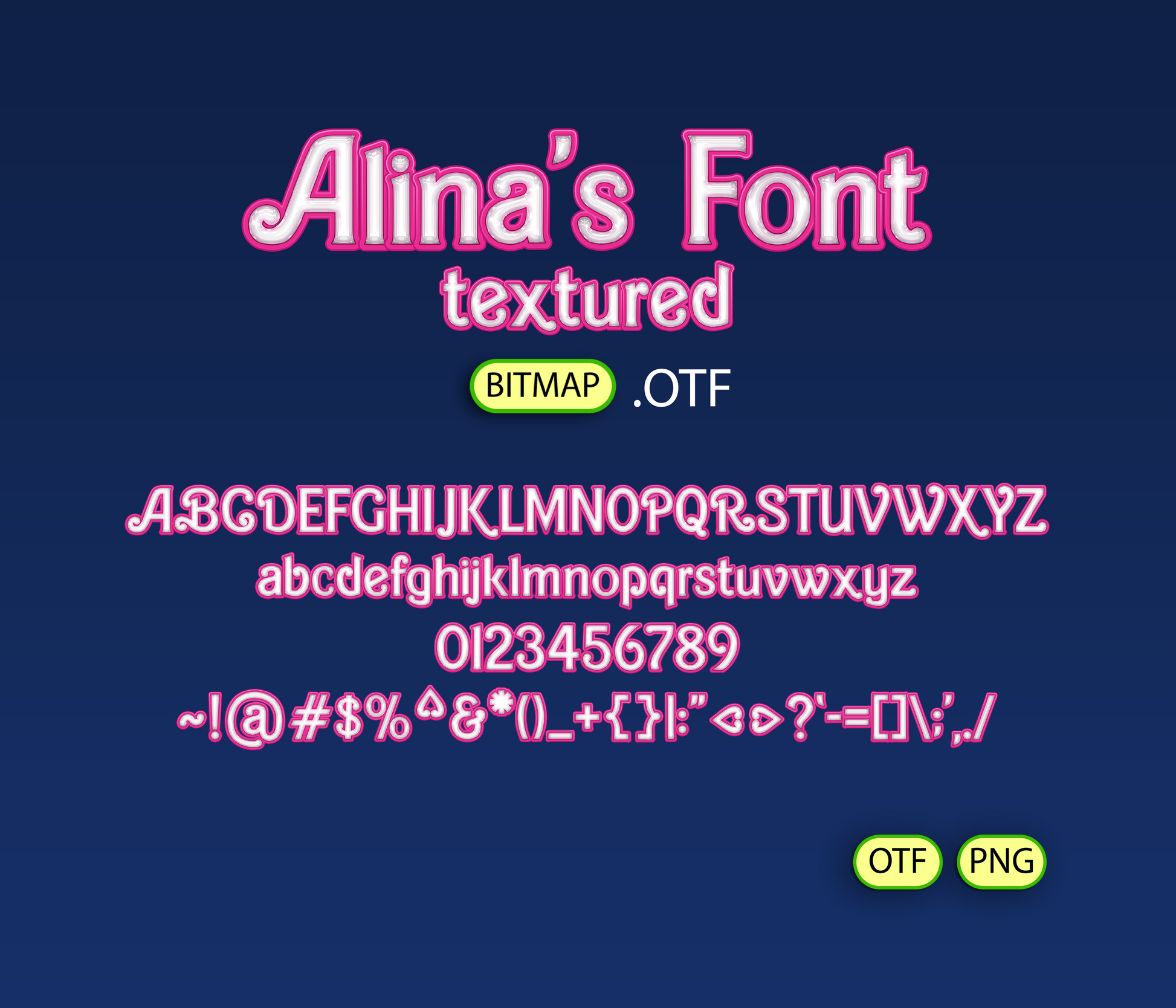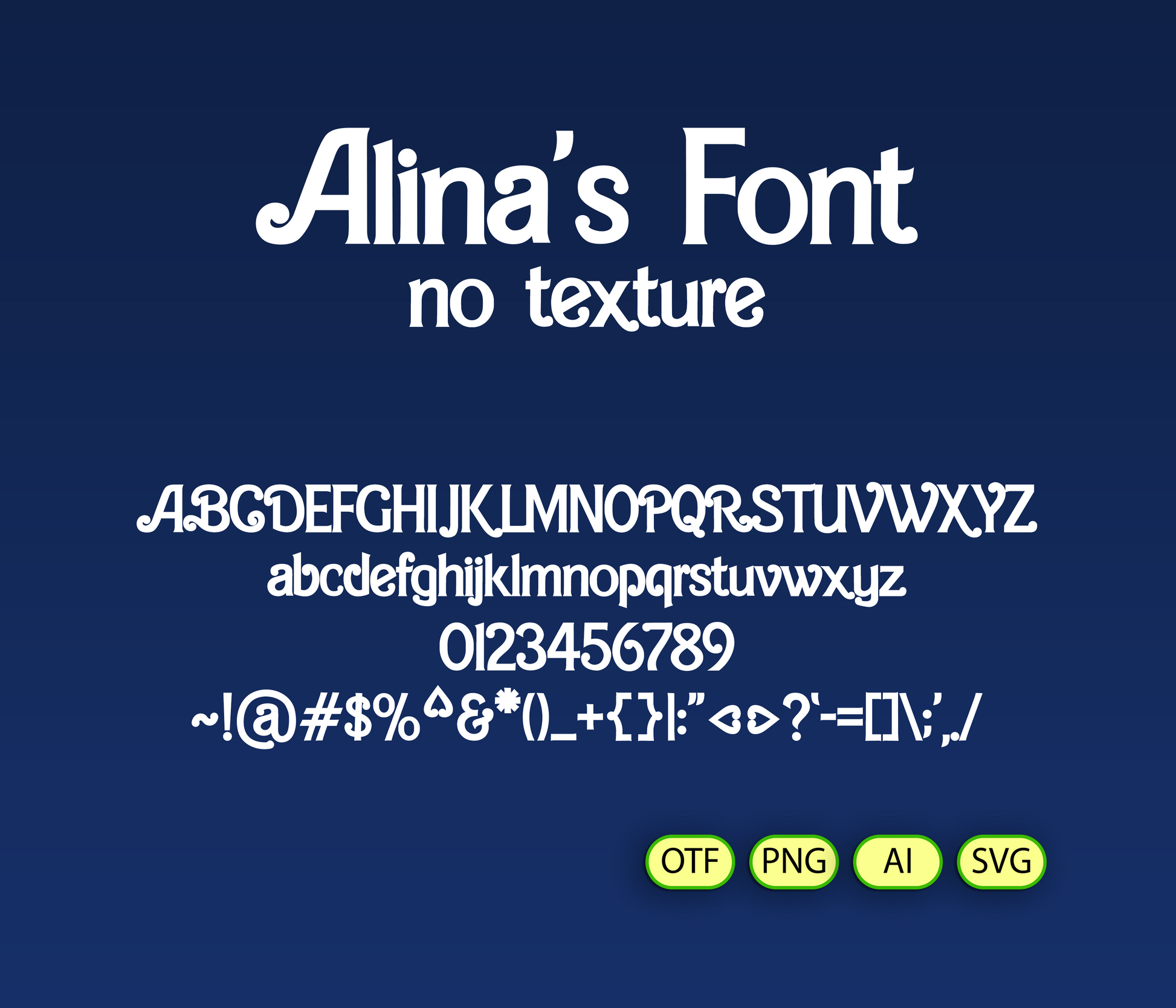
Dream Doll Font Textured
Dream Doll Fashion Font Textured
Step into the vibrant and stylish world of an iconic fashion doll with our Dream Doll Font, a typeface that radiates charm, elegance, and endless possibilities. This font is not just a collection of characters; it's a tribute to a legacy of inspiring imagination, fashion, and empowerment. Ideal for fans, designers, and dreamers alike, our font brings a touch of fantasy and glamour into every creation, from playful designs to chic projects.
What font is the Dream Doll Textured Font?
It's a meticulously crafted typeface, designed to capture the essence of a unique and fashionable world. Each letter in this font is styled to reflect iconic branding, blending modern chic with timeless elegance. With a full set of alphabets, numbers, and special characters, this font offers the versatility to create a wide range of inspired designs.
What Can You Do With The Dream Doll Textured Font?
The Dream Doll Font transforms ordinary text into something extraordinary, embodying the spirit of imagination in every design. Its versatility is perfect for a variety of personalized projects and merchandise. Here are some specific uses: